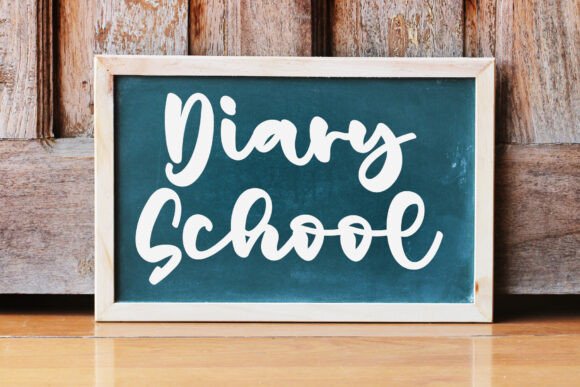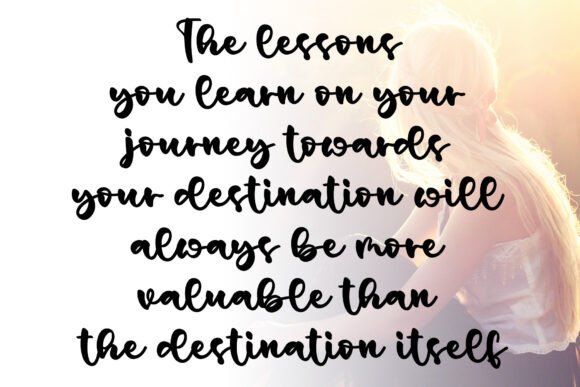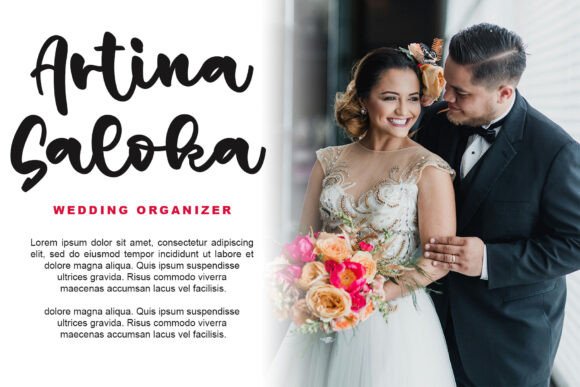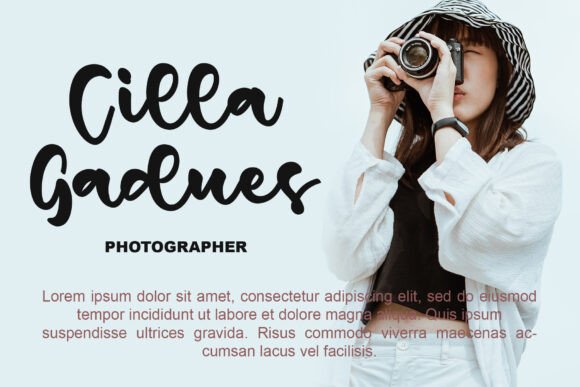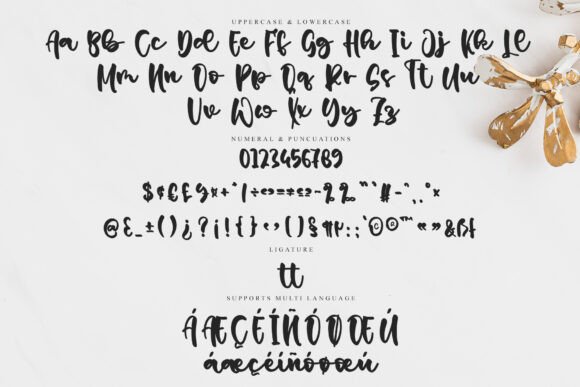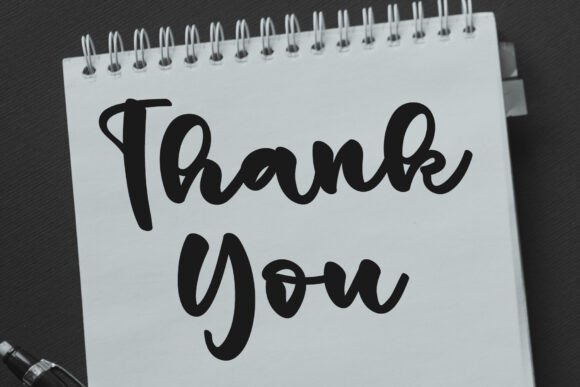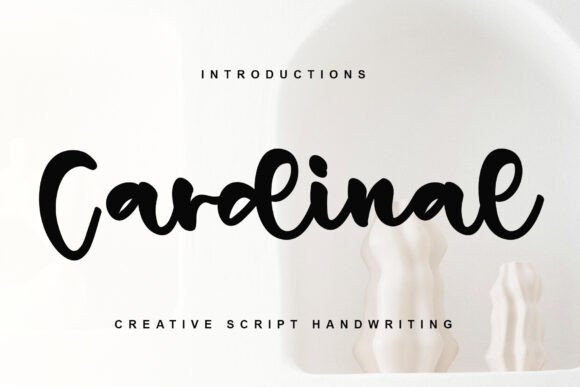
Introducing Cardinal Font: Elevate Your Designs with a Touch of Elegance
In the world of typography, a font can make or break a design. For designers, crafters, and creatives, finding the perfect typeface that conveys the desired message and aesthetic can be a daunting task. However, if you’re looking for a stylish and modern handwritten font that can add a touch of happiness to your creations, look no further than Cardinal Font.
What is Cardinal Font?
Cardinal Font is a beautiful, modern handwritten typeface that is suitable for a wide spectrum of applications. Whether you’re designing greeting cards, headlines, branding materials, or packaging, this font is sure to bring a touch of elegance and sophistication to your work. With its flowing lines and cursive strokes, Cardinal Font exudes a sense of warmth and friendliness, making it perfect for projects that require a personal touch.
Key Features of Cardinal Font
So, what sets Cardinal Font apart from other typefaces? Here are some of its key features:
- PUA Encoded: Cardinal Font is PUA (Private Use Area) encoded, which means you can access all of the amazing glyphs and ligatures with ease. This feature makes it easy to use the font and get the most out of its design.
- Stylish and Modern: Cardinal Font boasts a stylish and modern design that is sure to impress. Its clean lines, flowing curves, and elegant strokes make it perfect for a wide range of applications.
- Versatile: Whether you’re designing a greeting card, a headline, or a brand identity, Cardinal Font is versatile enough to handle any project. Its flexibility makes it a great addition to any designer’s toolkit.
Use Cases for Cardinal Font
So, what can you use Cardinal Font for? The possibilities are endless! Here are some use cases to get you started:
- Greeting Cards: Add a personal touch to your greeting cards with Cardinal Font. Its elegant design and flowing lines make it perfect for special occasions like weddings, birthdays, and holidays.
- Headlines: Make your headlines stand out with Cardinal Font. Its bold and stylish design is sure to grab attention and add a touch of sophistication to your designs.
- Branding and Packaging: Use Cardinal Font to create a cohesive brand identity. Its modern design and versatile nature make it perfect for packaging, labels, and branding materials.
- Digital Designs: Cardinal Font is also perfect for digital designs, such as social media graphics, blog posts, and website headers.
Tips for Using Cardinal Font
To get the most out of Cardinal Font, here are some tips to keep in mind:
- Experiment with Ligatures: With its PUA encoding, Cardinal Font comes with a range of ligatures and glyphs. Experiment with these to add a unique touch to your designs.
- Play with Colors: Cardinal Font looks great in a range of colors. Experiment with different hues and shades to find the perfect combination for your design.
- Mix and Match: Don’t be afraid to mix and match Cardinal Font with other typefaces. Its versatility makes it easy to pair with other fonts to create a unique look.